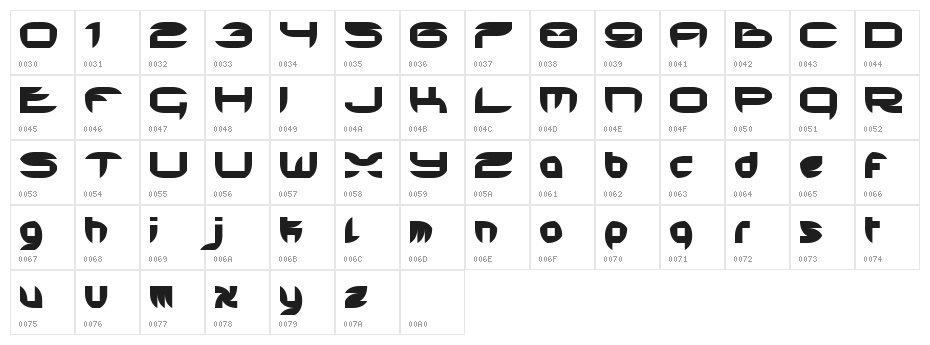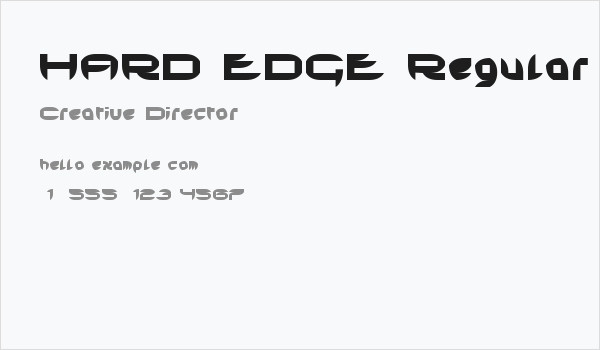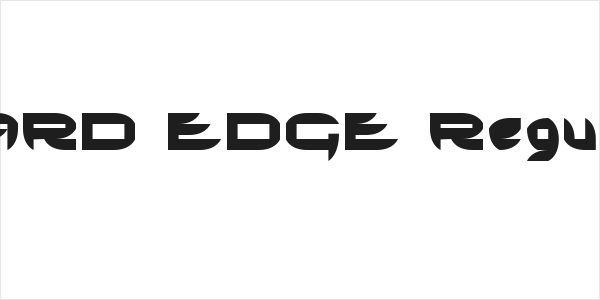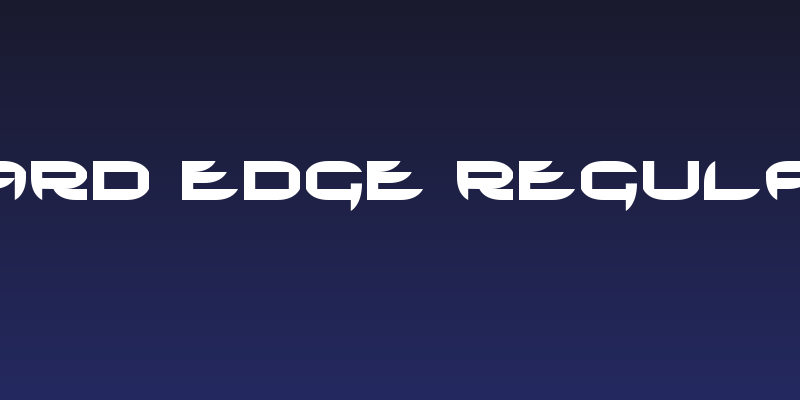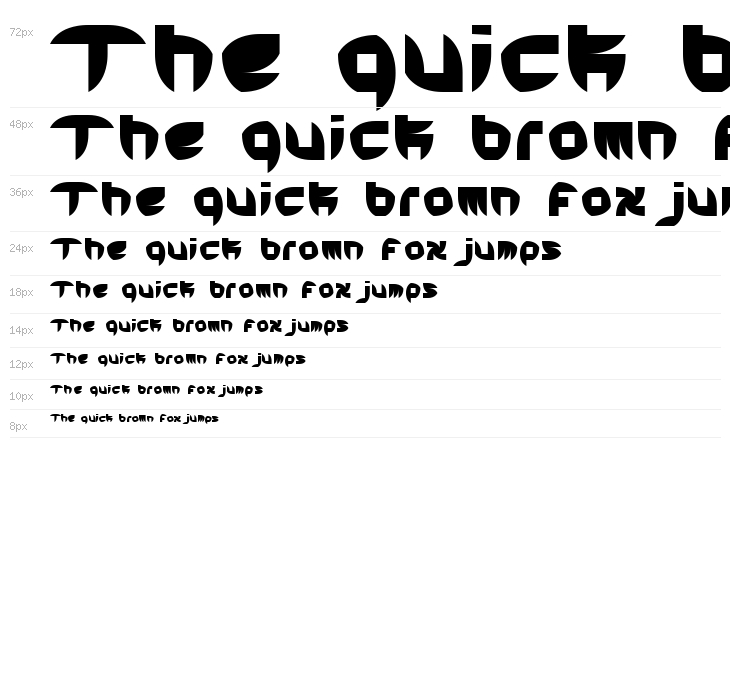
HARD EDGE Regular Font
HARD EDGE Regular Description
This font features a bold, futuristic design with sharp, angular edges and a geometric structure. The characters are crafted with a distinct, hard-edged style that gives a sense of modernity and strength. The uppercase and lowercase letters maintain a consistent aesthetic, with unique cutouts and angles that create a dynamic visual impact. The numbers and special characters follow the same design principles, ensuring a cohesive look across all glyphs. This font's bold presence makes it ideal for projects that require a strong, contemporary feel.
| Proposed Projects | Ideal for sci-fi themed designs, technology branding, video game titles, and modern posters. |